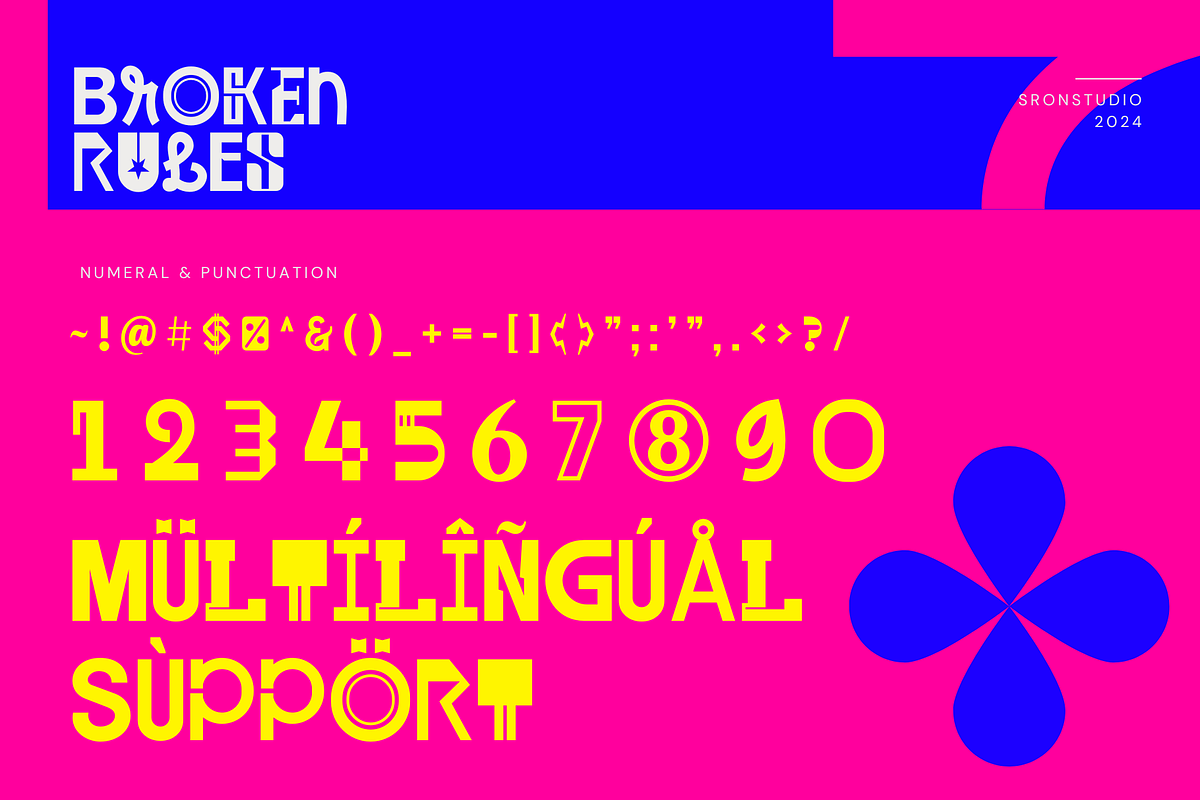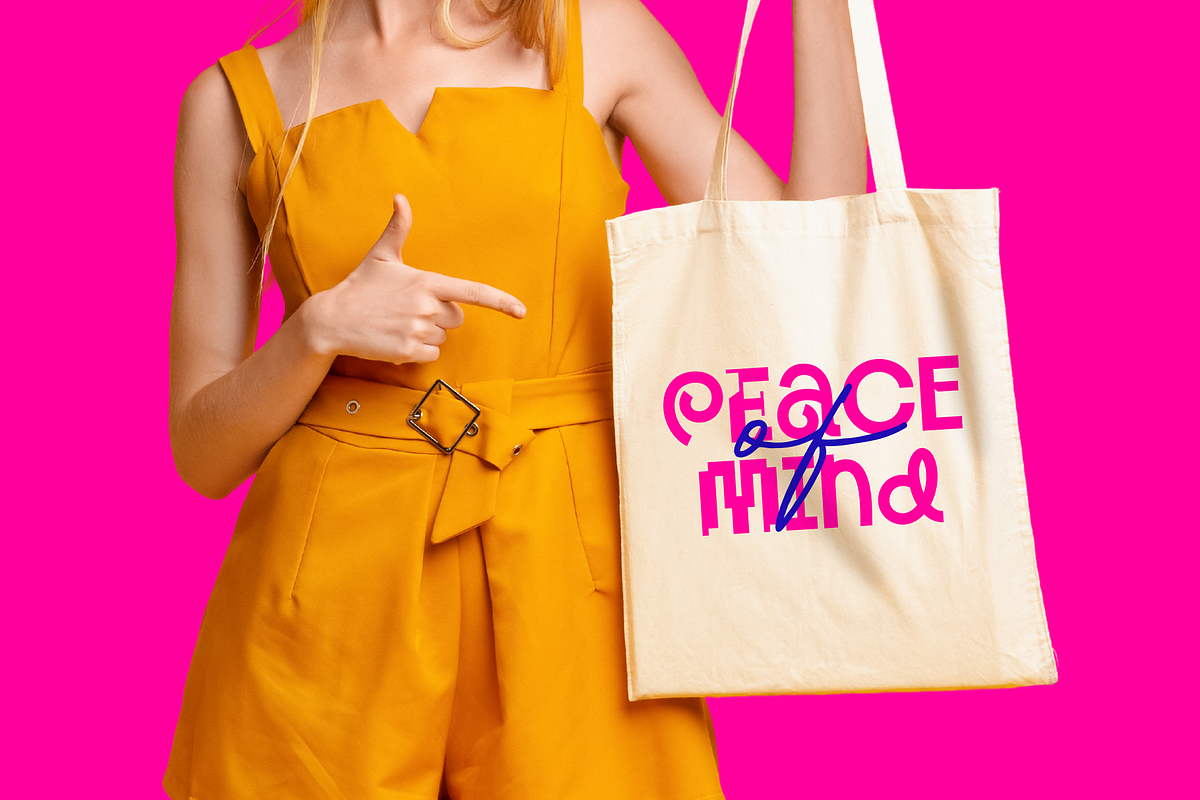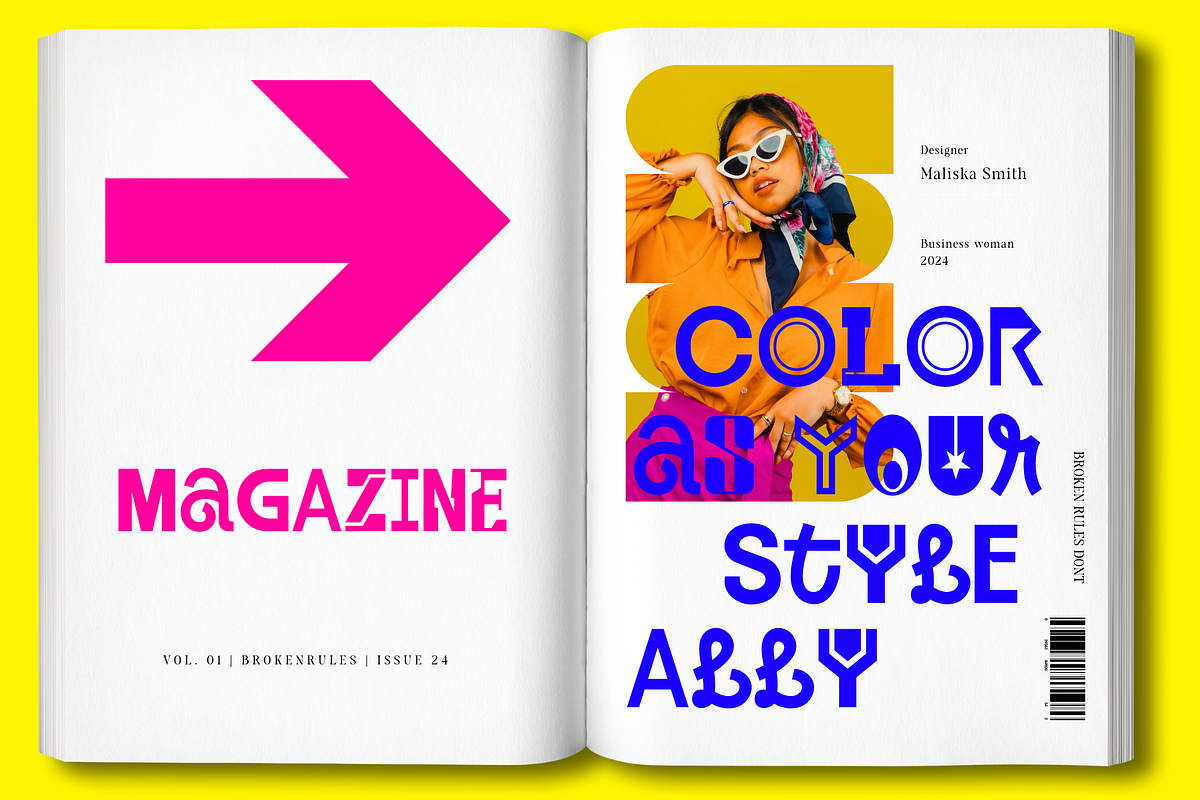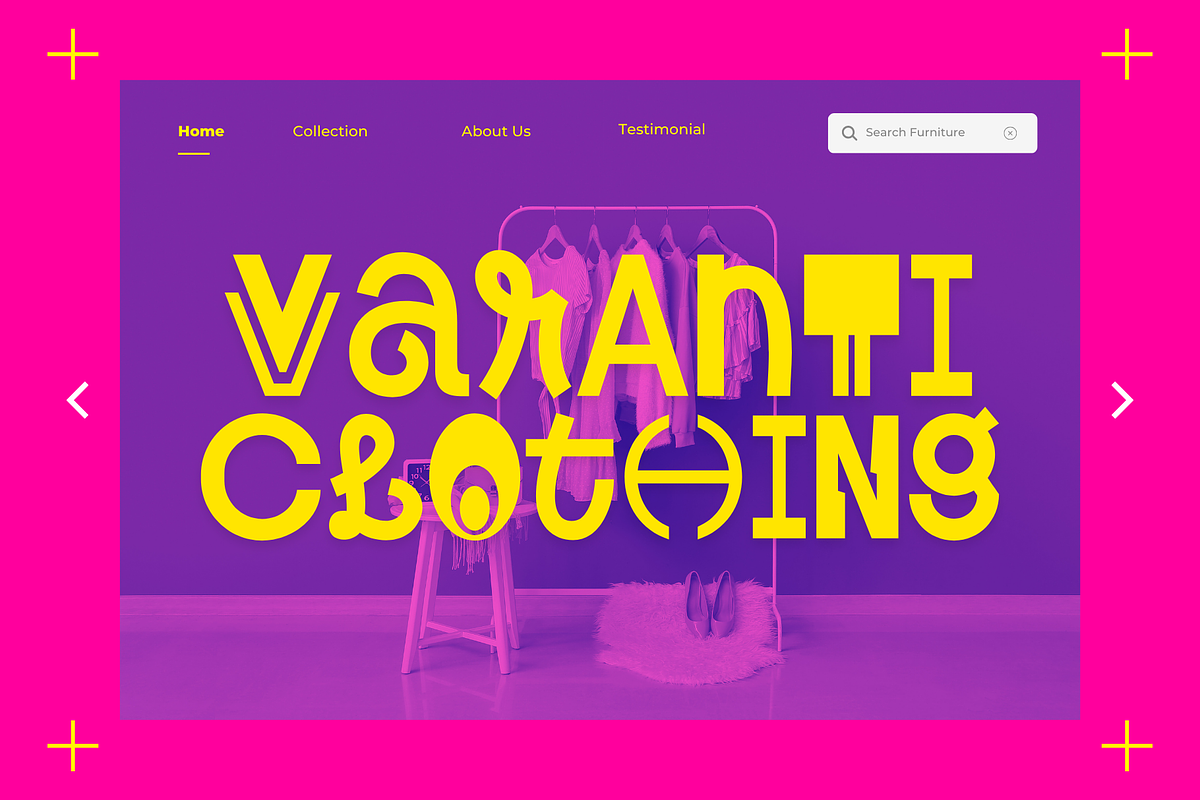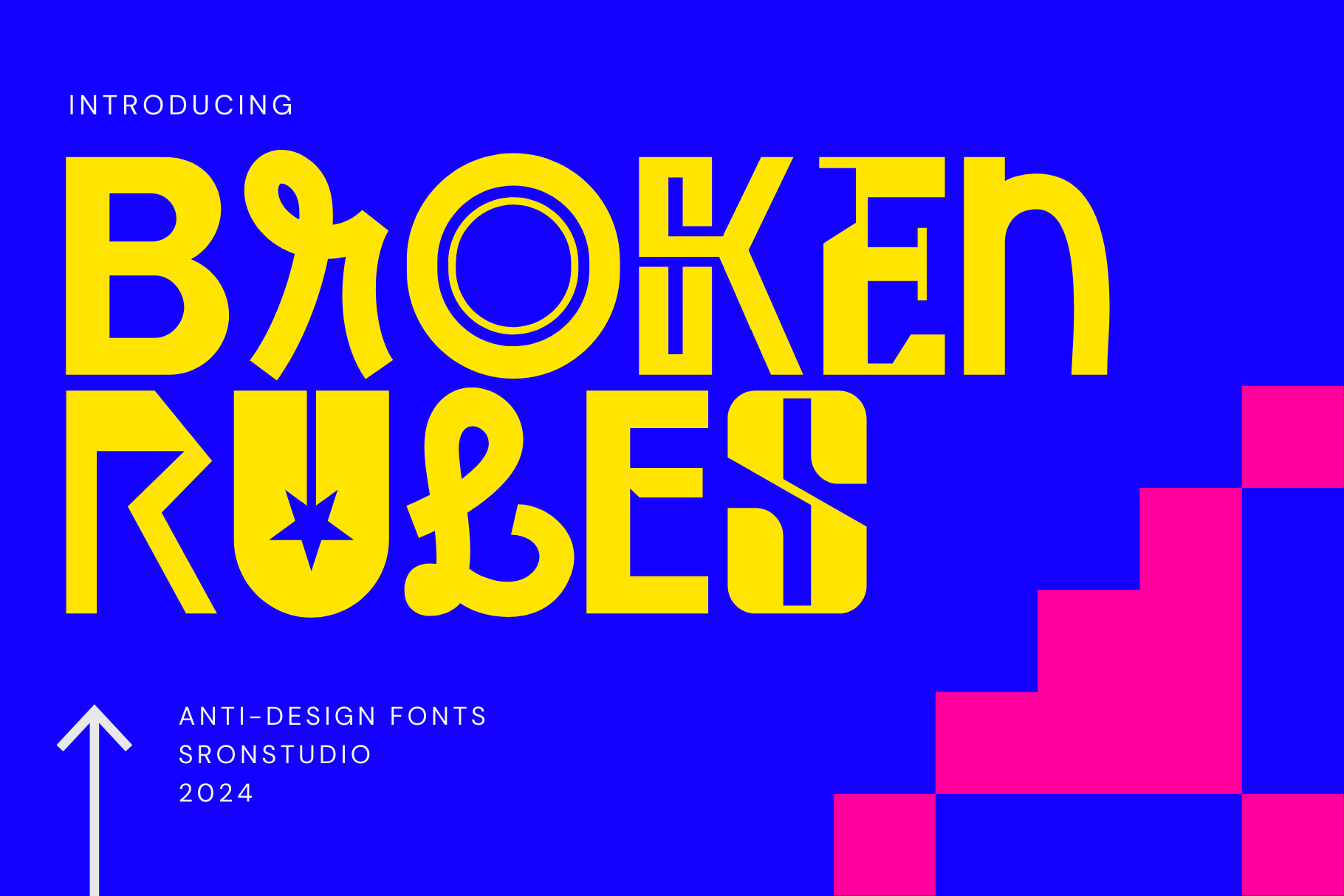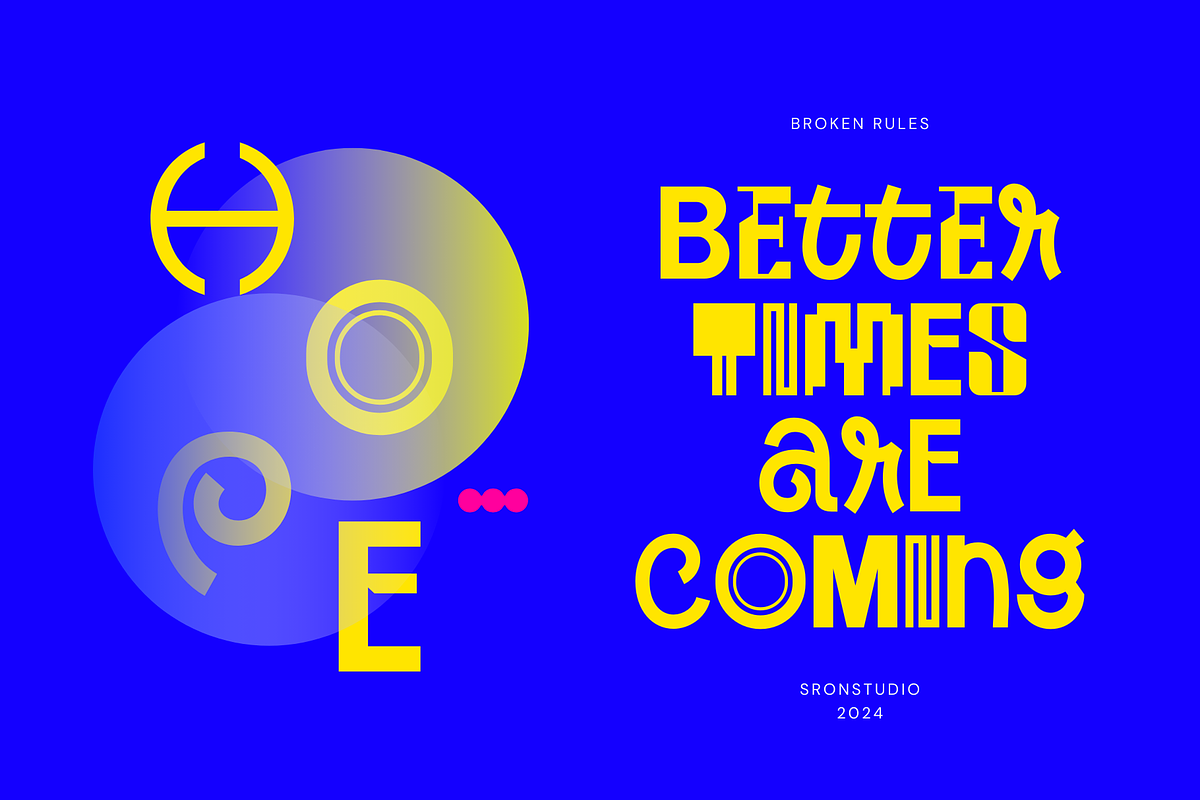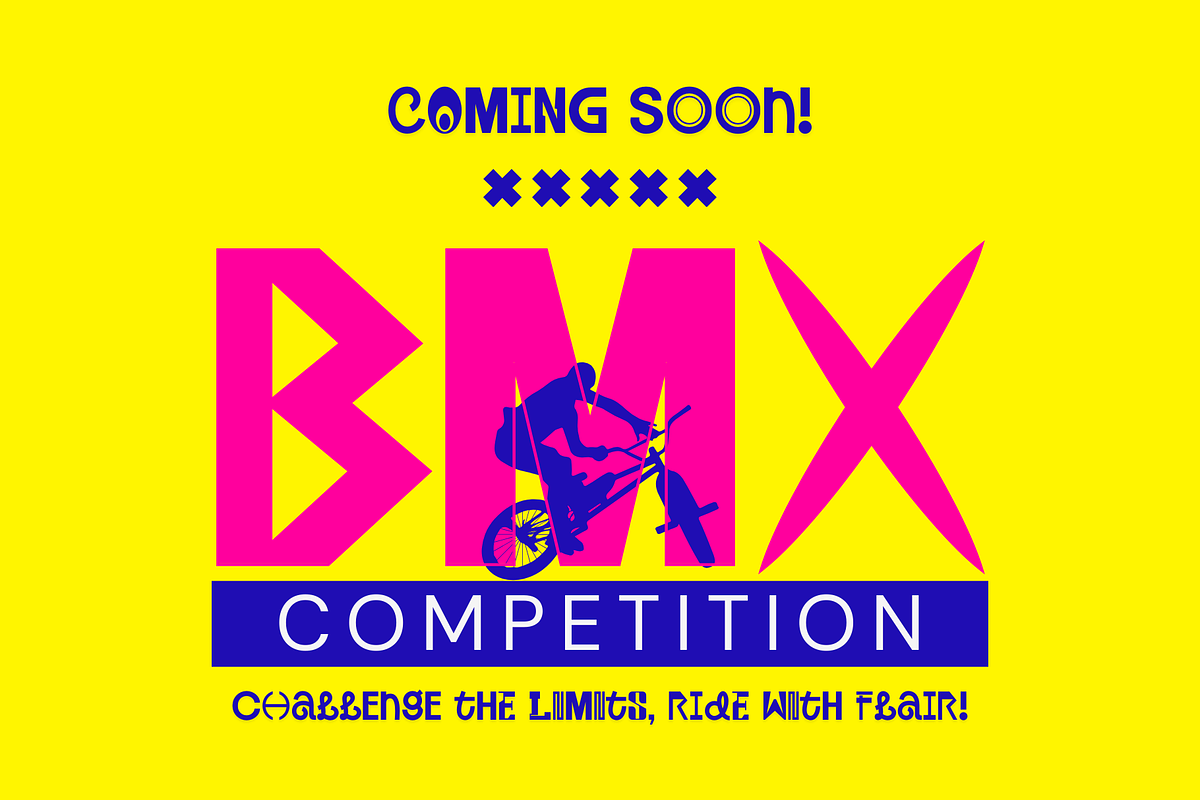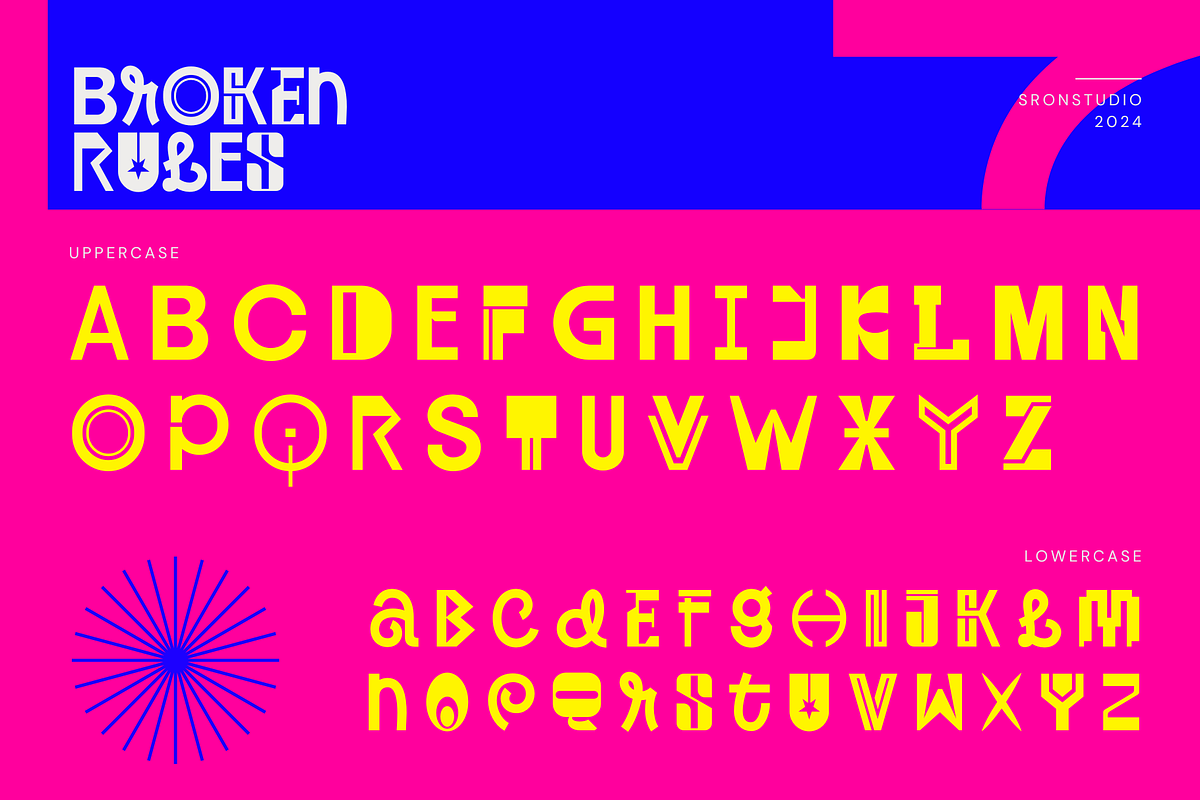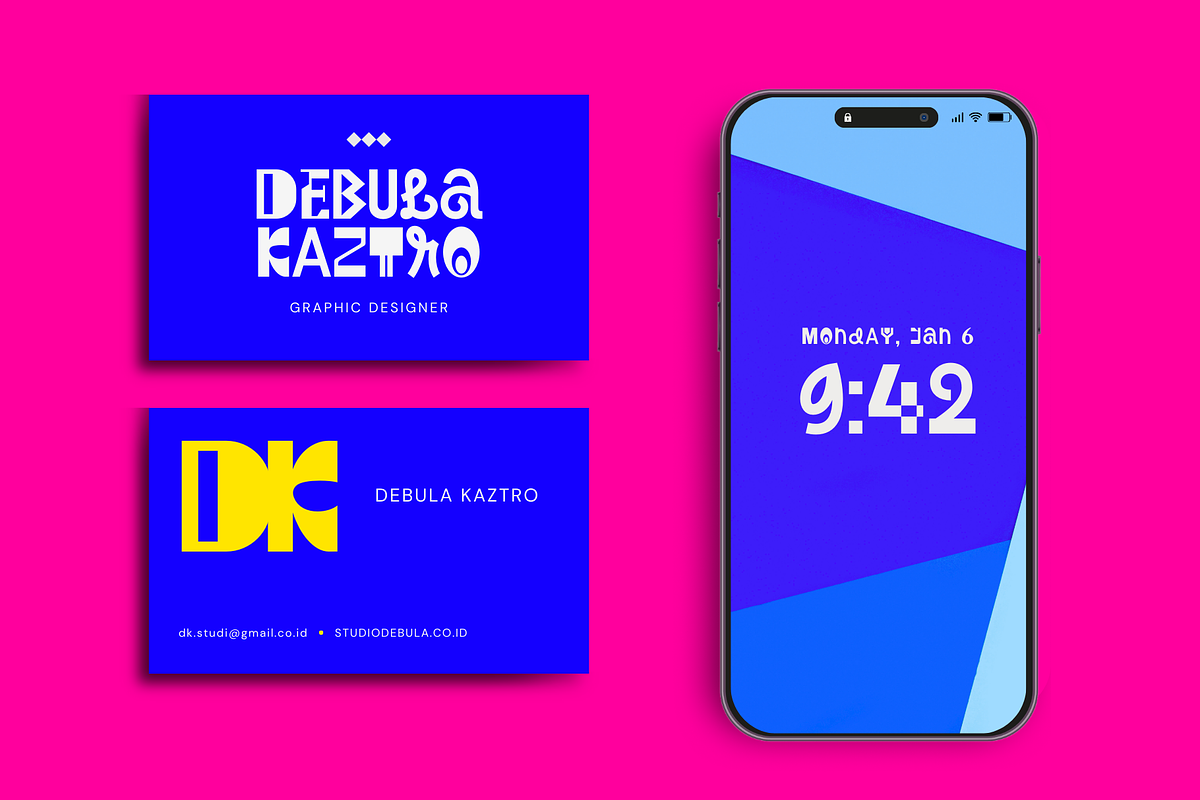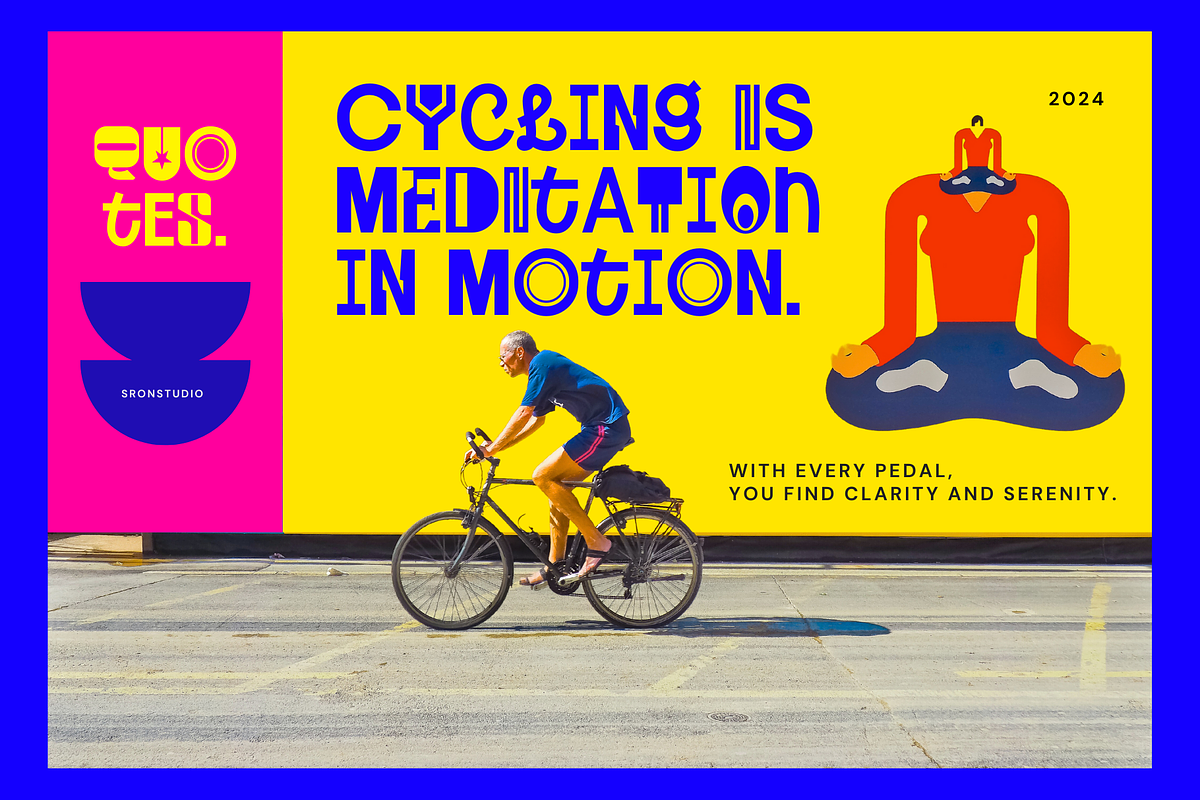
Broken Rules - Anti Design Font
Broken Rules is an edgy anti-design font that defies conventions with its unconventional shapes and chaotic aesthetic. Perfect for experimental projects, bold statements, and creative freedom, this font breaks the norm to stand out!